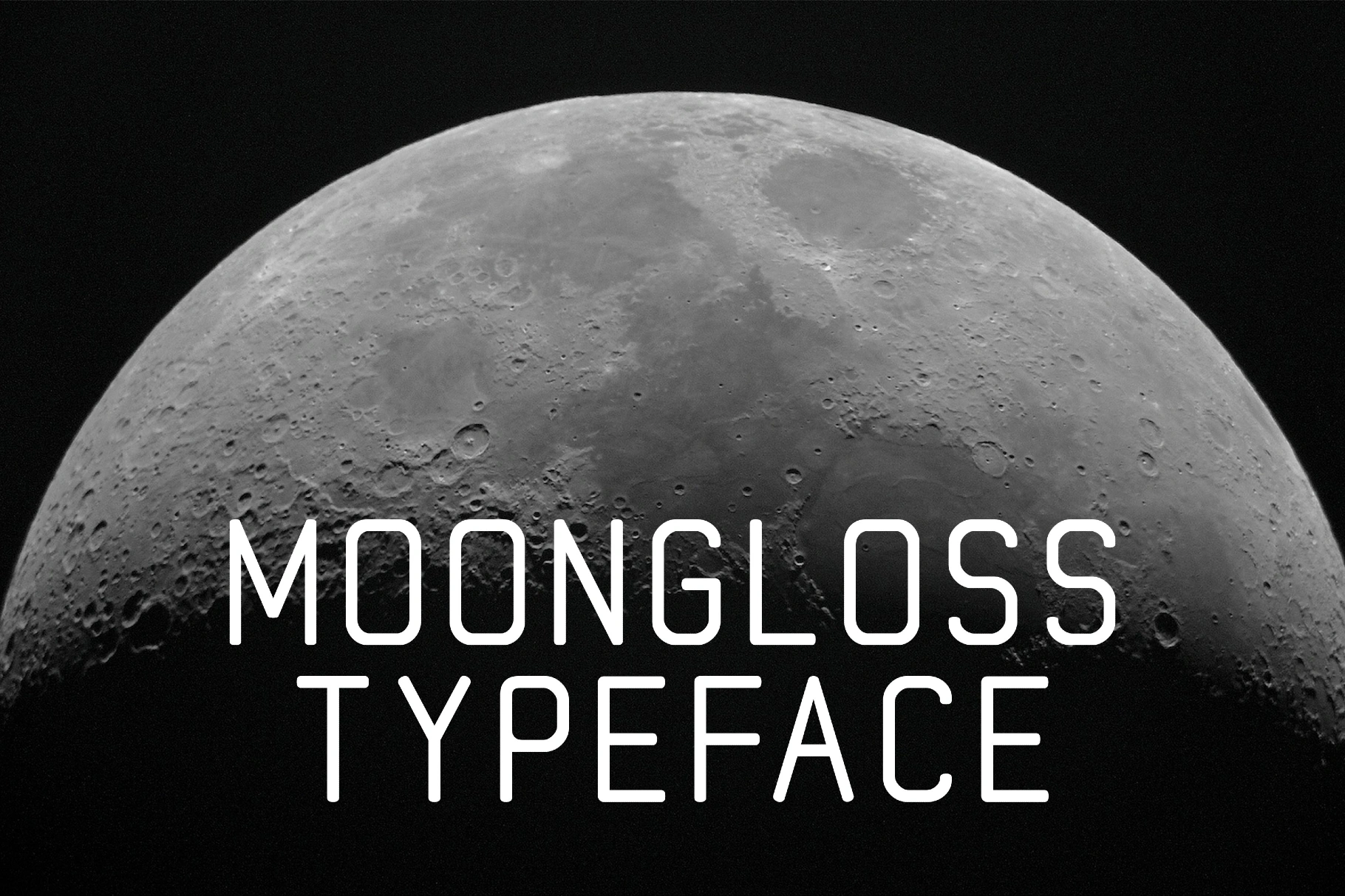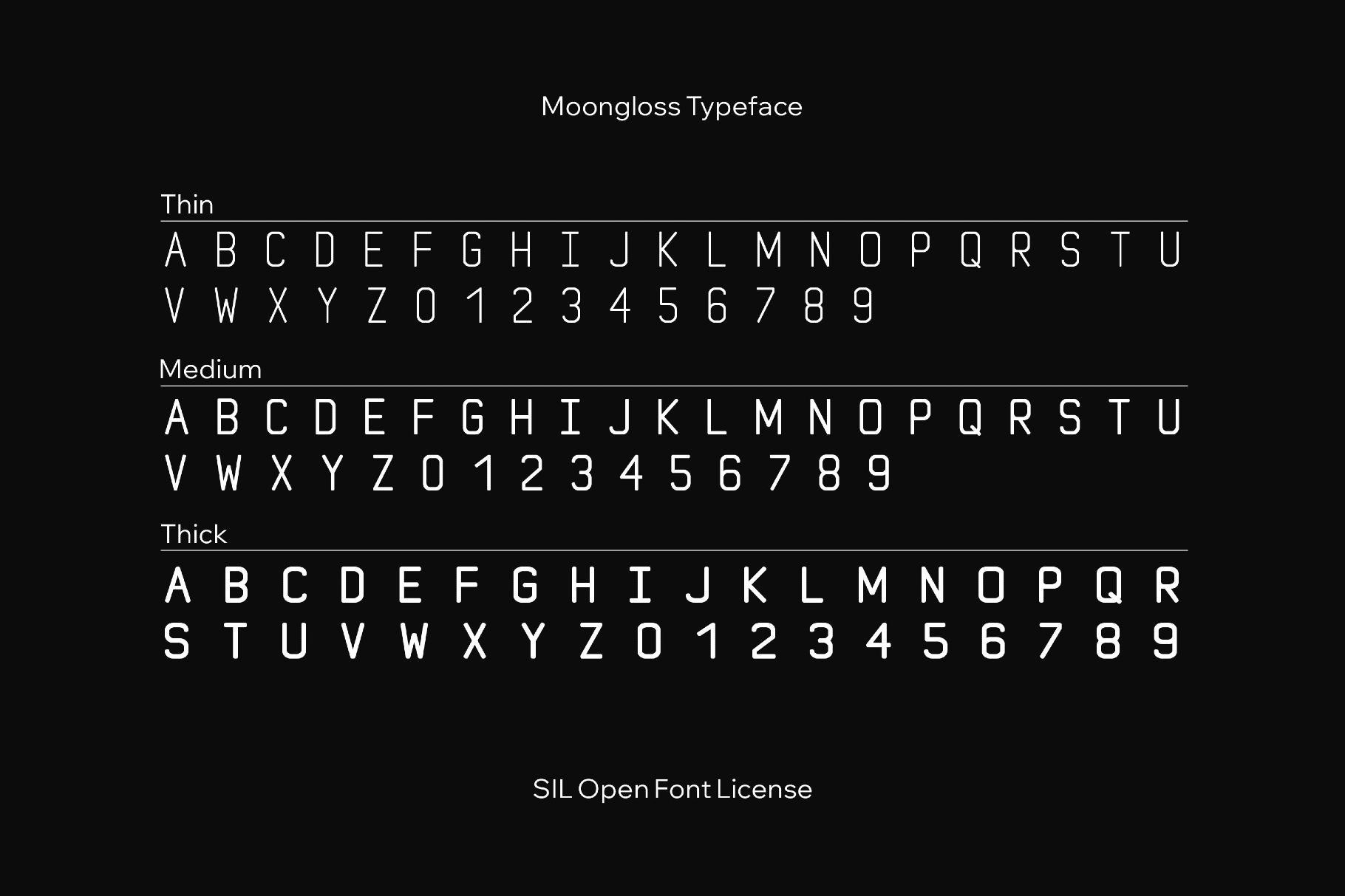
Moongloss Typeface
Moongloss is a monospaced space font where every letter's got equal footing and a steady mechanical rhythm, as if it were lifted from a departure board in a space terminal. Date stamps, itech branding, UI experiments, title cards, editorial layouts, packaging, interface headers, posters, album artwork, branding details, and event graphics all benefit from its ordered yet slightly offbeat tone.
- 3 styles: Medium, Thick, and Thin;
- uppercase letters;
- numbers, punctuation, and symbols;
- multilingual support across a basic Latin script.